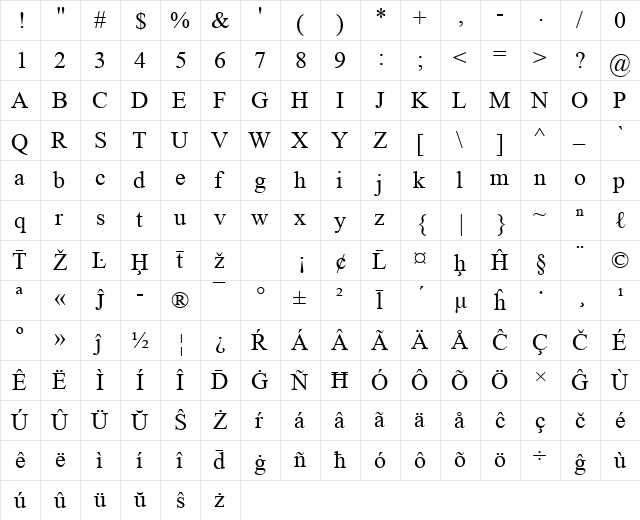
Times NR Basque Regular
Design Context for Times NR Basque Typeface
Times NR Basque is a composed and adaptable typeface that performs quietly and consistently across a wide range of design contexts.